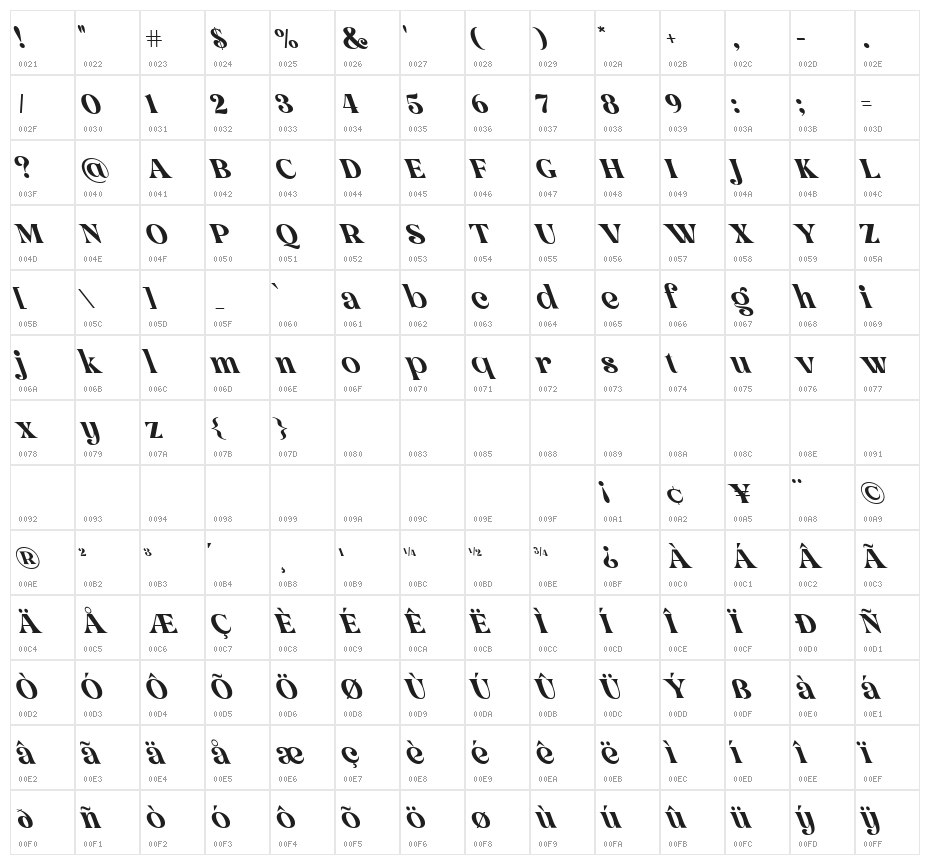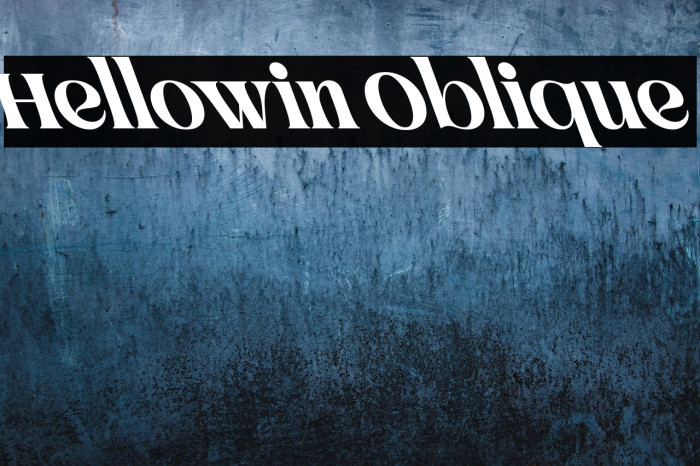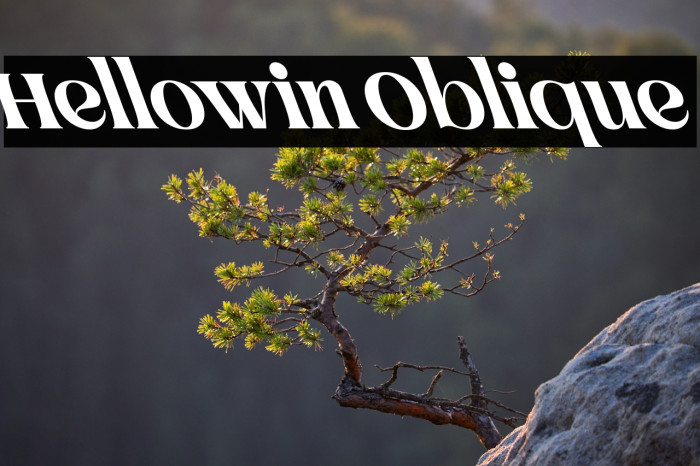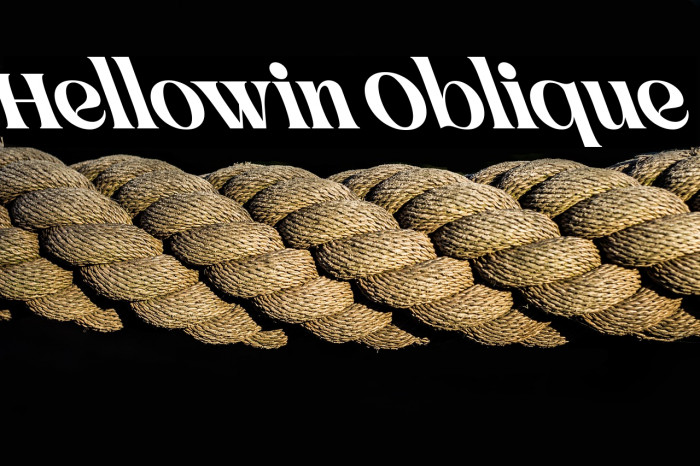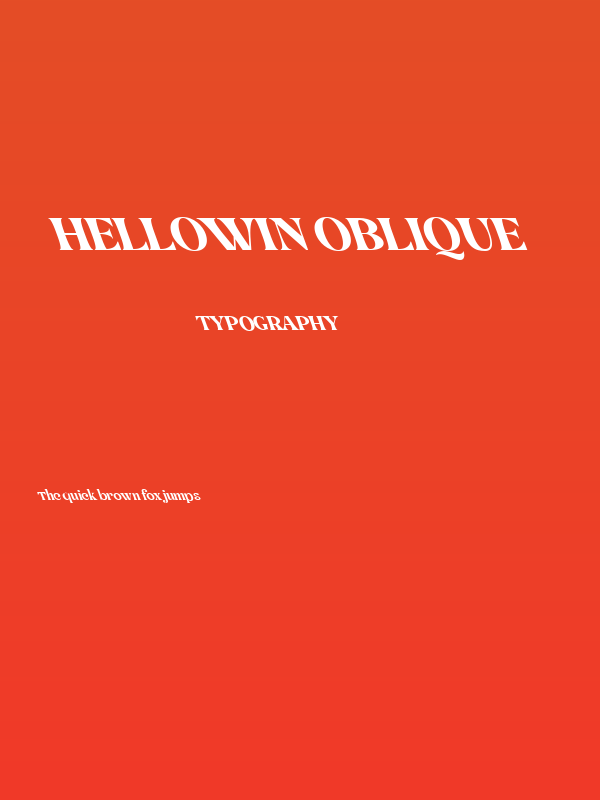
Hellowin Oblique Font
Hellowin Oblique Description
This font features a bold and dynamic style with a distinct oblique slant, giving it a sense of movement and energy. The characters are thick and robust, with sharp serifs that add a touch of elegance and sophistication. The uppercase letters are particularly striking, with their pronounced angles and strong presence. The lowercase letters maintain the same boldness, ensuring consistency throughout the typeface. Numbers and special characters are equally bold, making them stand out effectively. This font's unique style is ideal for projects that require a strong visual impact.